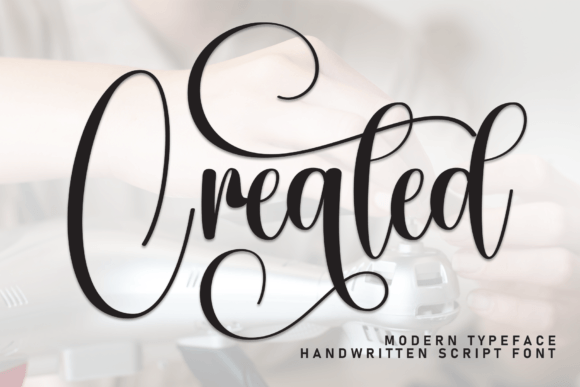
Introducing Created Font: The Sweet and Friendly Handwritten Font
Are you looking for a font that can add a touch of warmth and personality to your designs? Look no further than Created Font, a sweet and friendly handwritten font that’s perfect for a variety of projects. In this article, we’ll take a closer look at Created Font, its features, and how you can use it to elevate your designs.
What is Created Font?
Created Font is a beautiful, handwritten font that’s designed to bring a sense of fun and playfulness to your designs. With its cute and charming letterforms, this font is ideal for writing wedding invitations, cards, or any other design that might need a fun touch. Whether you’re a designer, a DIY enthusiast, or a business owner looking to create engaging content, Created Font is a great choice.
Key Features of Created Font
Handwritten Style
Created Font features a classic handwritten style that’s both elegant and approachable. The letterforms are carefully crafted to resemble handwriting, giving your designs a personal touch.
Cute and Fun
This font is designed to be fun and playful, making it perfect for designs that require a lighthearted touch. From wedding invitations to birthday cards, Created Font is sure to bring a smile to the reader’s face.
Versatile
Created Font is a versatile font that can be used for a wide range of projects, including:
- Wedding invitations and stationery
- Birthday cards and party invitations
- Social media graphics and posts
- Blog posts and articles
- Marketing materials and brochures
Benefits of Using Created Font
Adds a Personal Touch
Created Font’s handwritten style adds a personal touch to your designs, making them more relatable and engaging.
Easy to Read
The font is designed to be easy to read, even at small sizes, making it perfect for body text and captions.
Unique and Creative
Created Font’s unique and creative design sets it apart from more traditional fonts, giving your designs a fresh and modern look.
How to Use Created Font
Pair it with Other Fonts
Created Font pairs well with other fonts, including sans-serif fonts like Arial or Helvetica. Try pairing it with a bold font for headings and a clean font for body text.
Use it for Headings and Titles
Created Font is perfect for headings and titles, where its playful and cursive style can really shine.
Add it to Your Social Media Graphics
Use Created Font to add a personal touch to your social media graphics, including Facebook posts, Instagram stories, and Twitter headers.
Tips and Tricks
Experiment with Colors
Created Font looks great in a variety of colors, from bright and bold to soft and pastel. Experiment with different colors to find the perfect look for your design.
Play with Size and Scale
Don’t be afraid to play with size and scale when using Created Font. Use it at large sizes for headings and titles, or at smaller sizes for body text and captions.
In conclusion, Created Font is a sweet and friendly handwritten font that’s perfect for adding a touch of fun and personality to your designs. With its cute and charming letterforms, versatile design, and easy-to-read style, this font is ideal for a wide range of projects. Whether you’re a designer, a DIY enthusiast, or a business owner looking to create engaging content, Created Font is a great choice. So why not give it a try and see how it can elevate your designs?